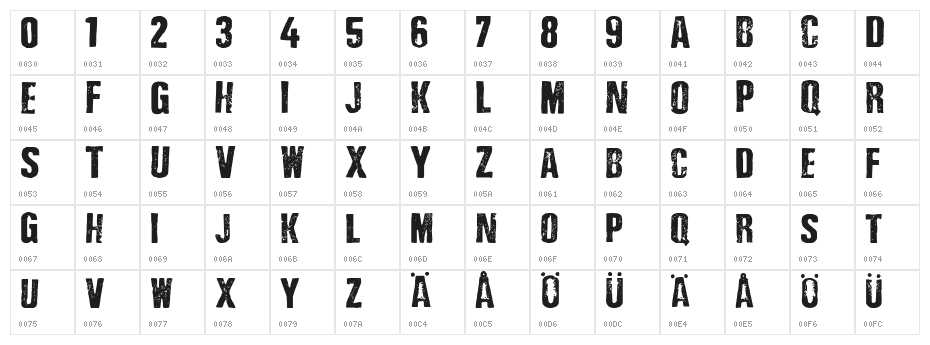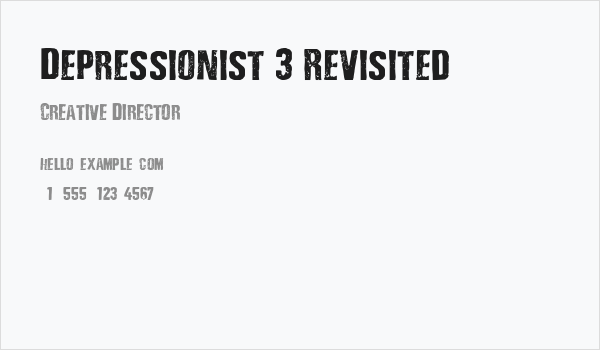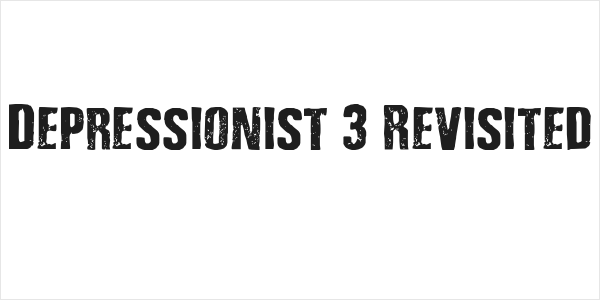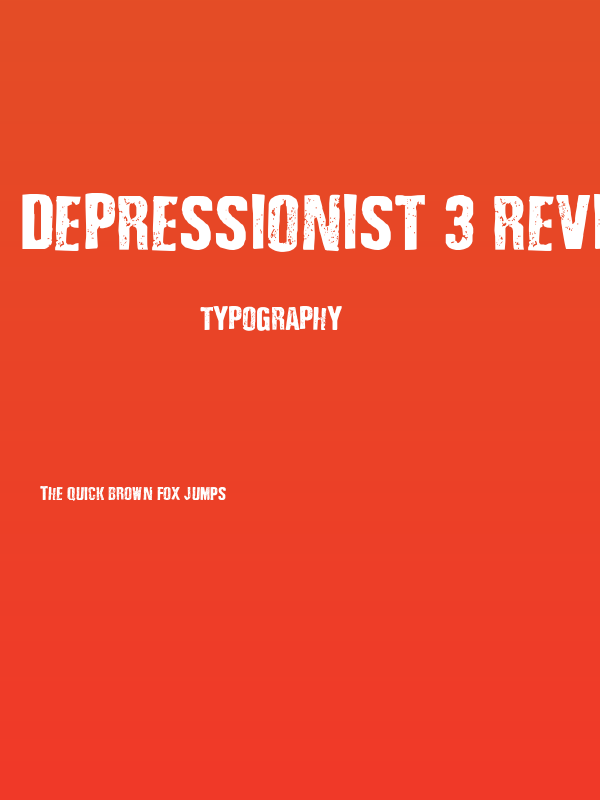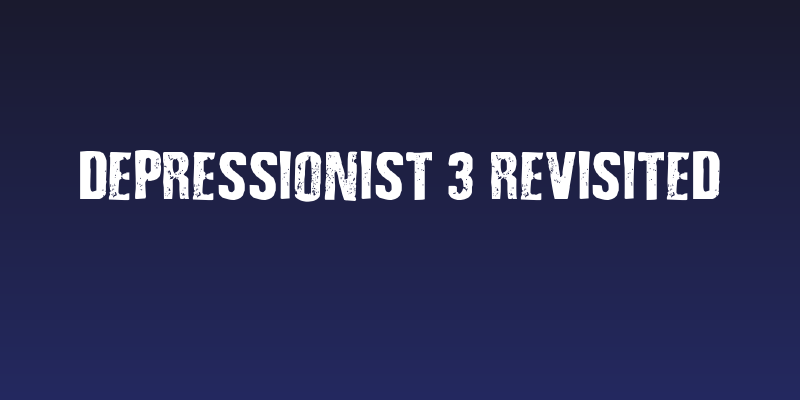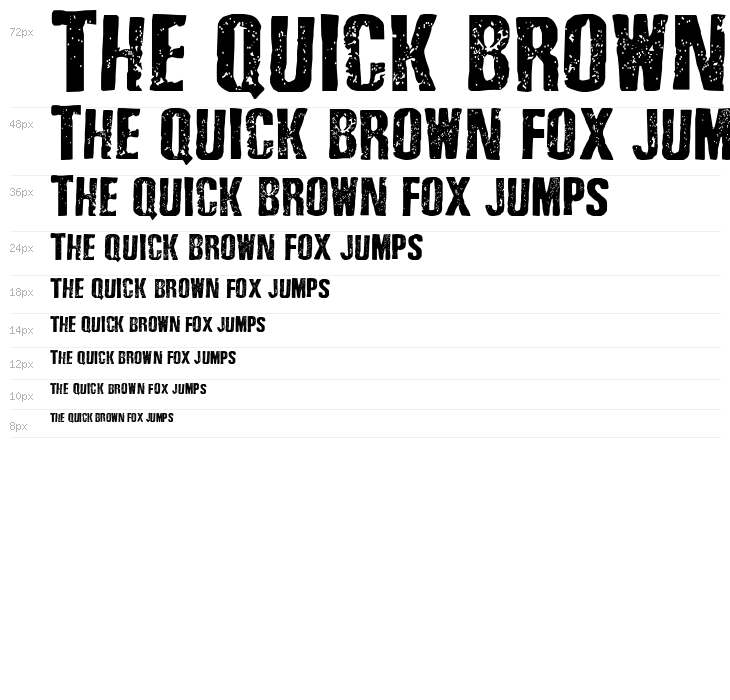
Depressionist 3 Revisited Font
Depressionist 3 Revisited Description
This font features a bold, distressed style with a rugged, textured appearance, giving it a vintage and worn look. The characters are thick and robust, with irregular edges and a grunge effect that adds a sense of depth and character. The uppercase letters are prominent and commanding, while the numbers maintain the same boldness and texture. This font is ideal for projects that require a strong, impactful visual presence, such as posters, album covers, or branding that seeks to convey a sense of edginess and authenticity.
| Proposed Projects | Ideal for posters, album covers, branding, and any project needing a strong, edgy visual impact. |